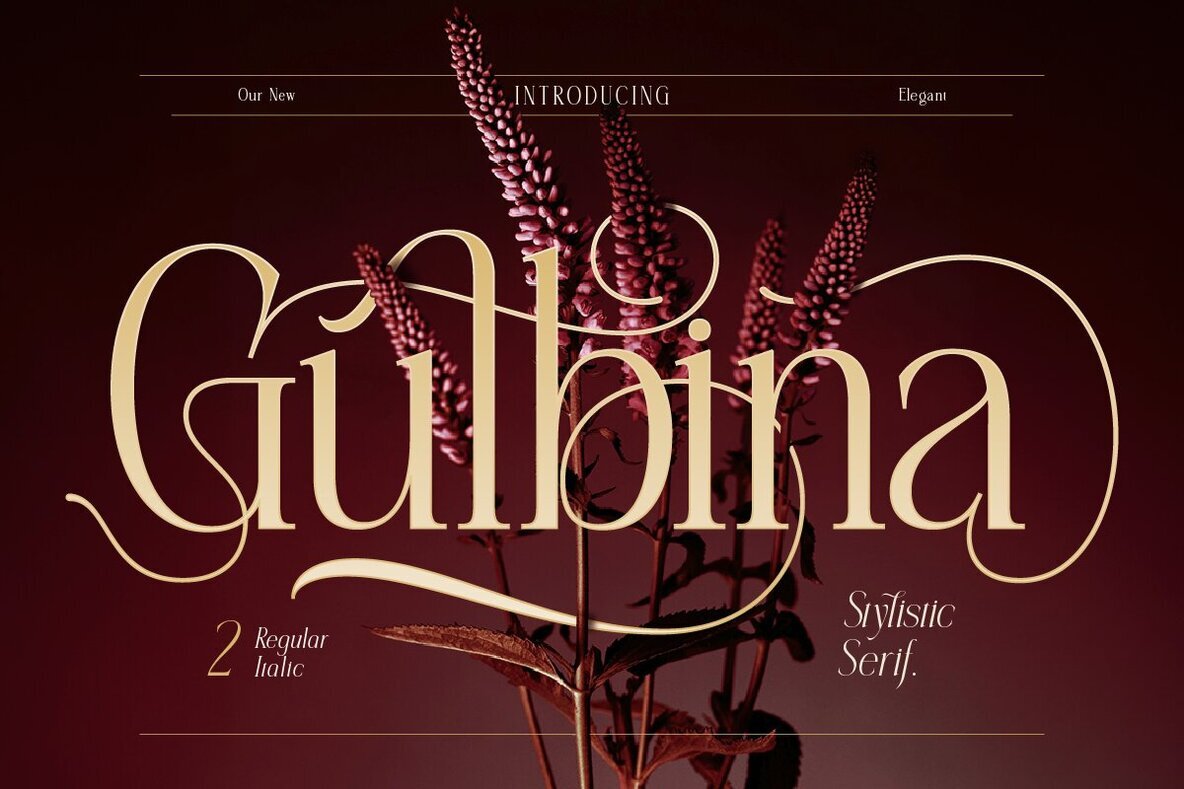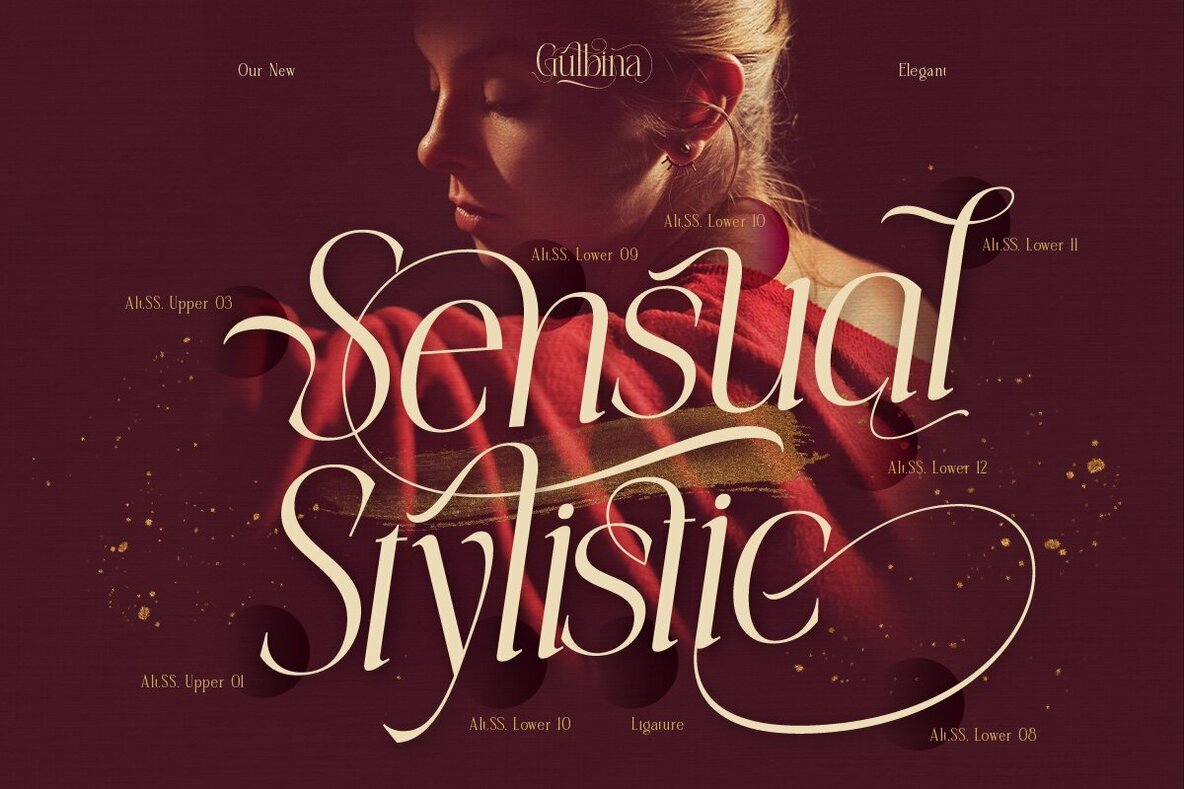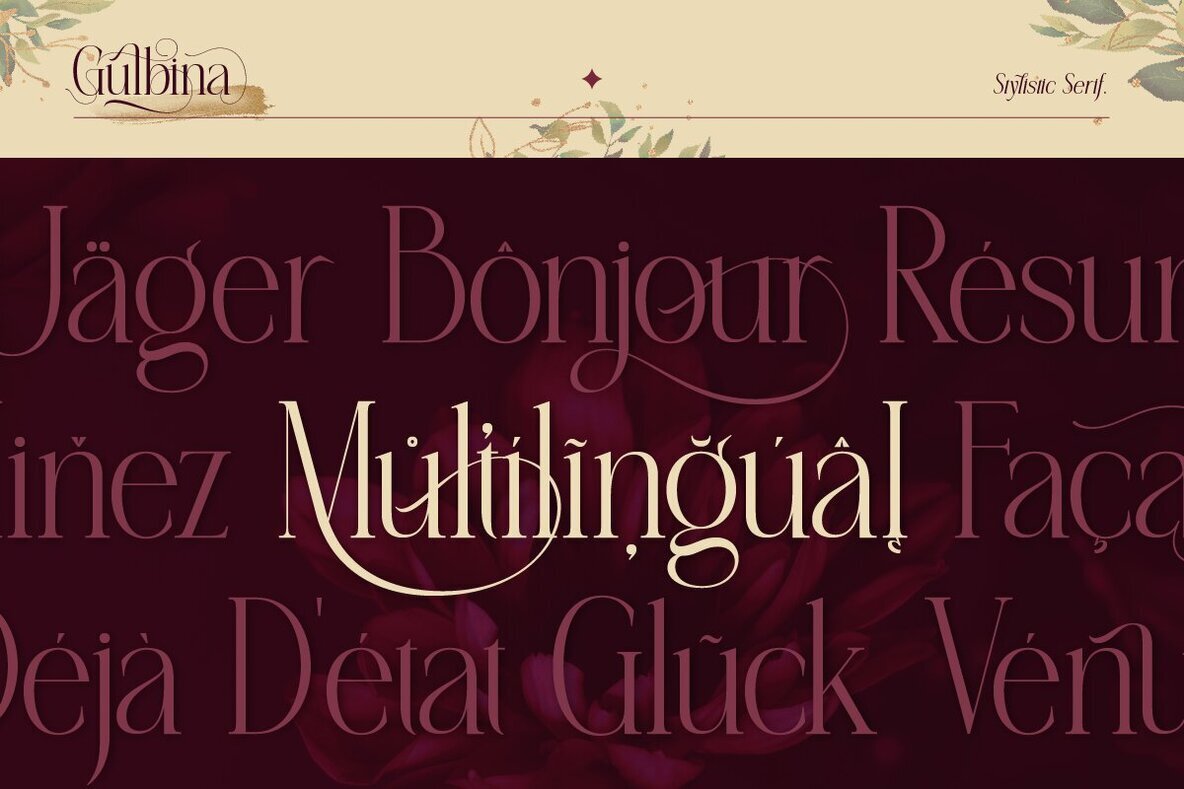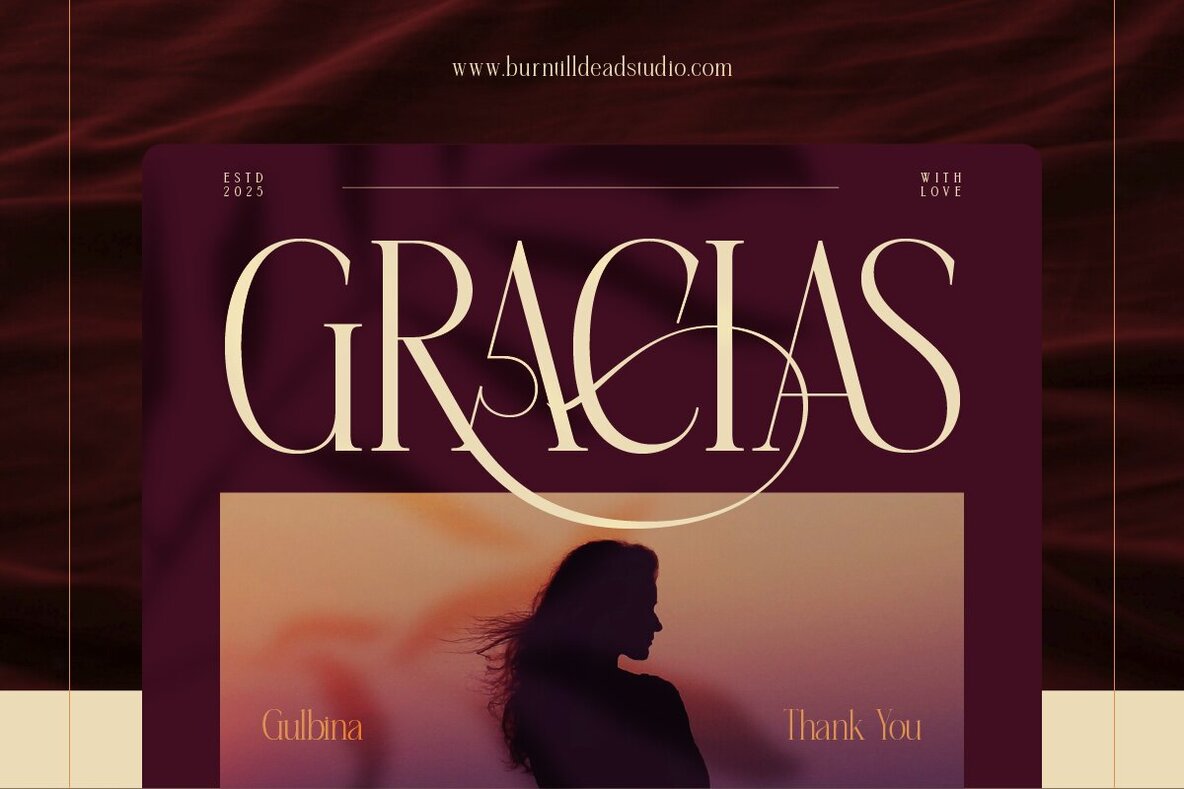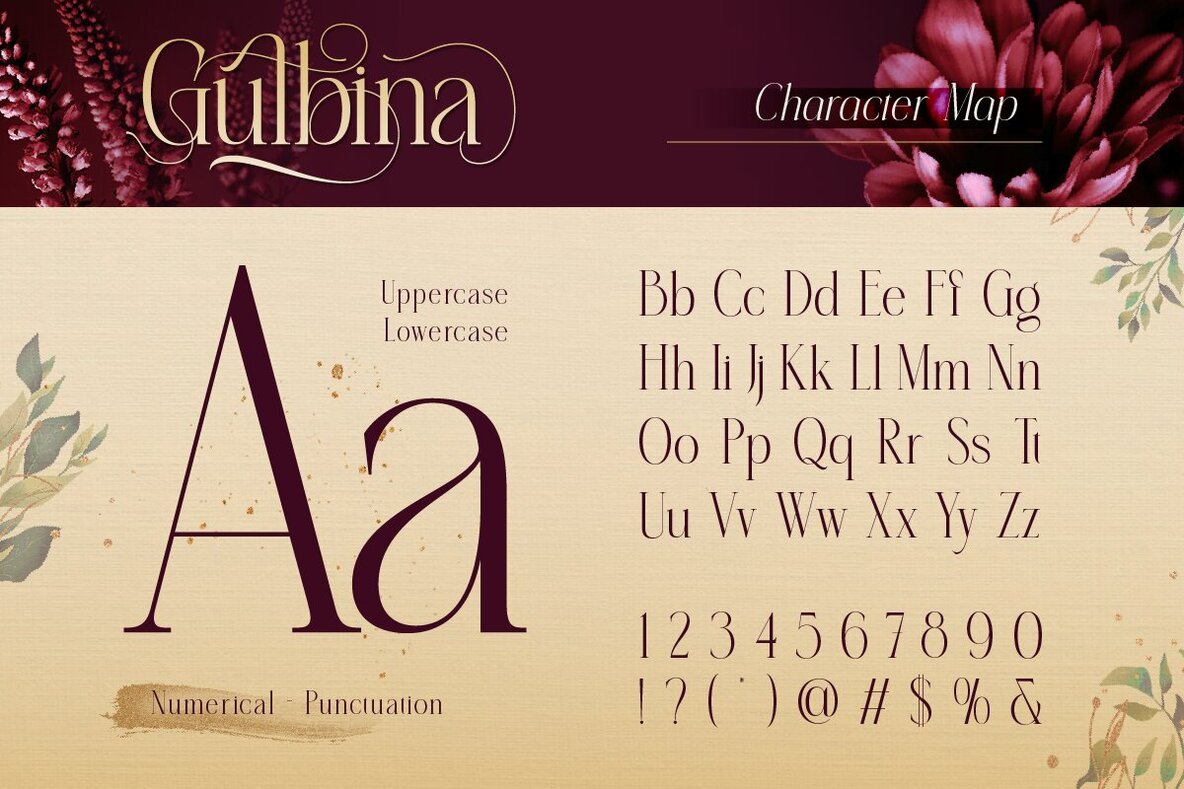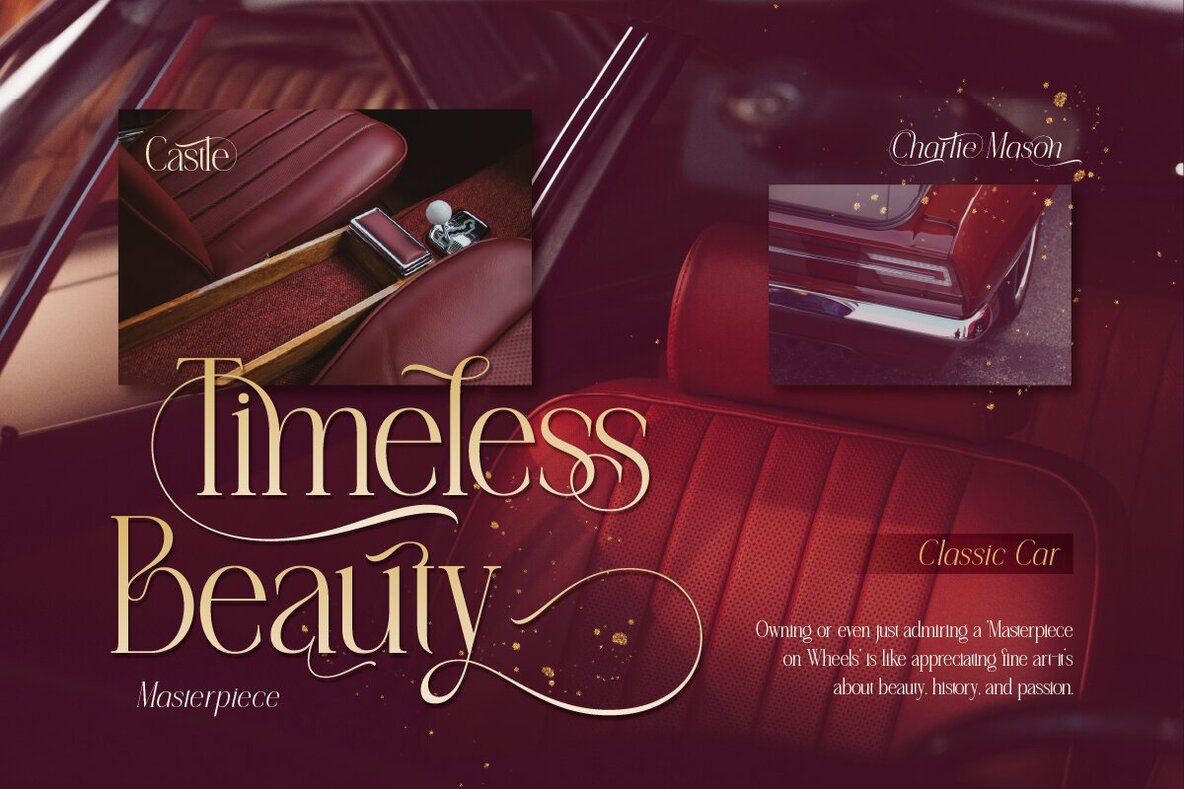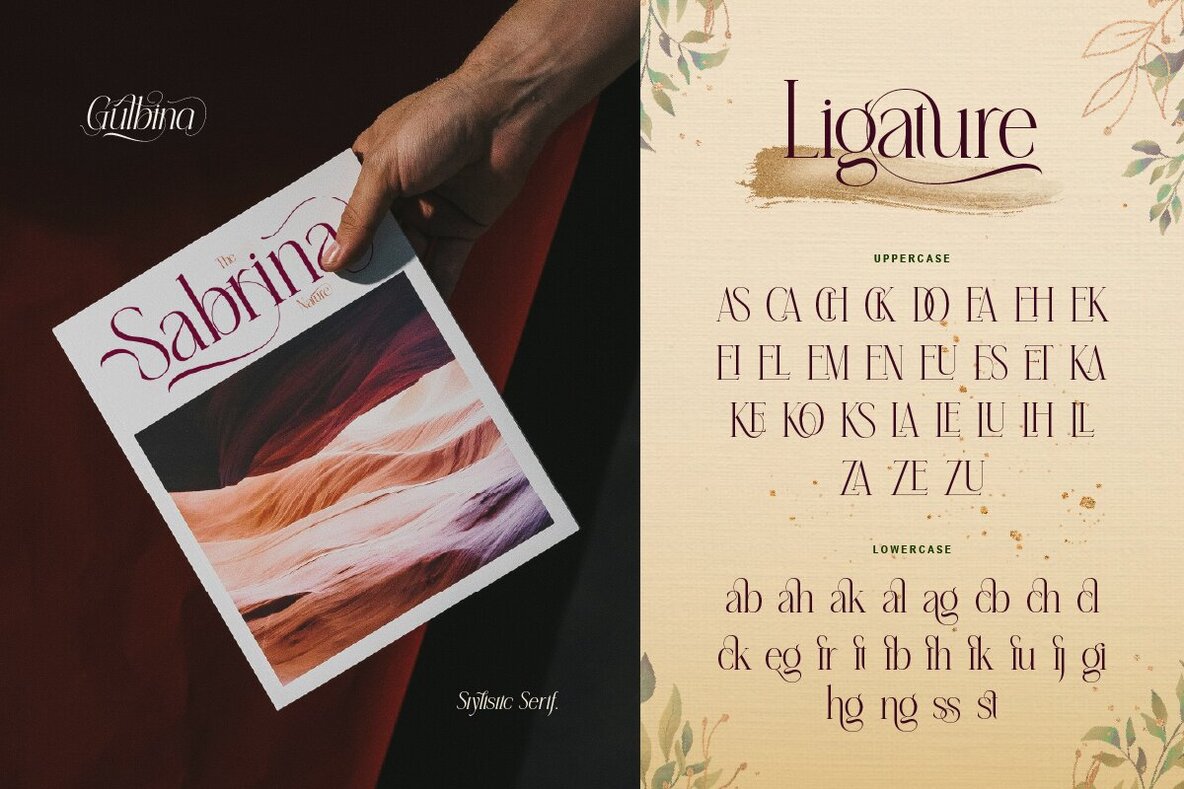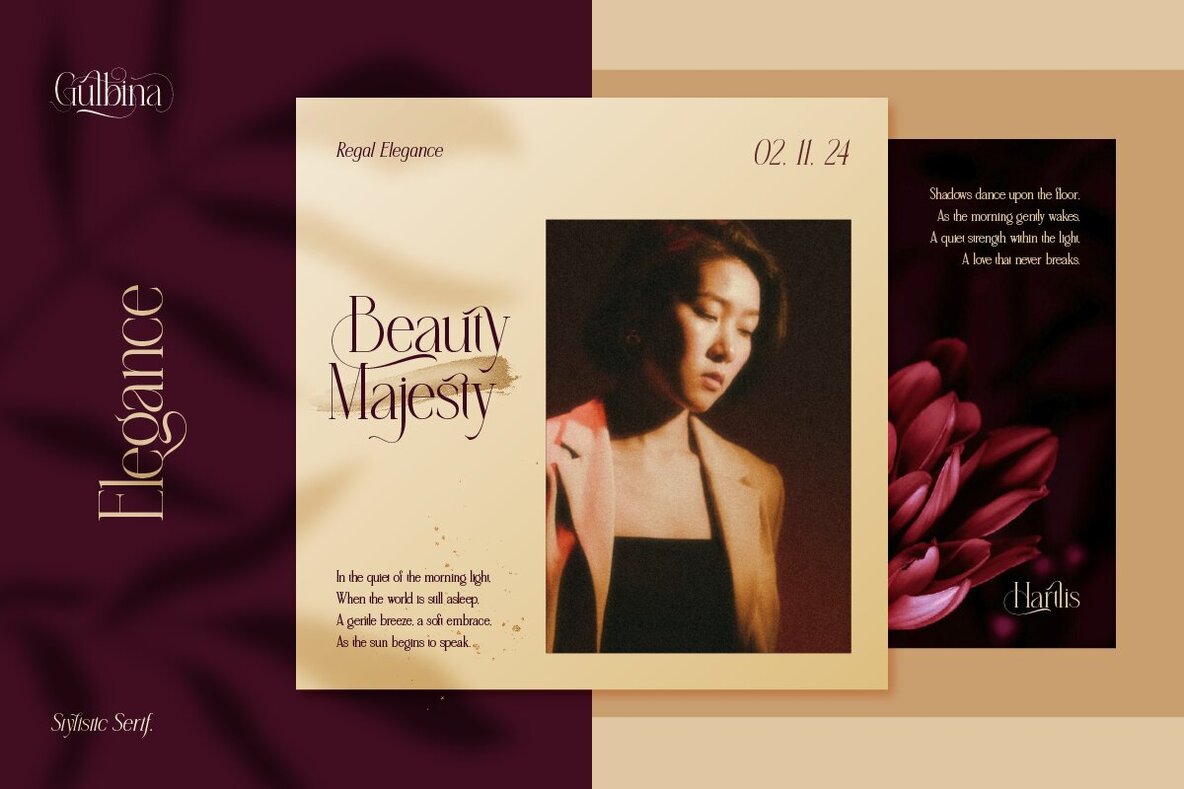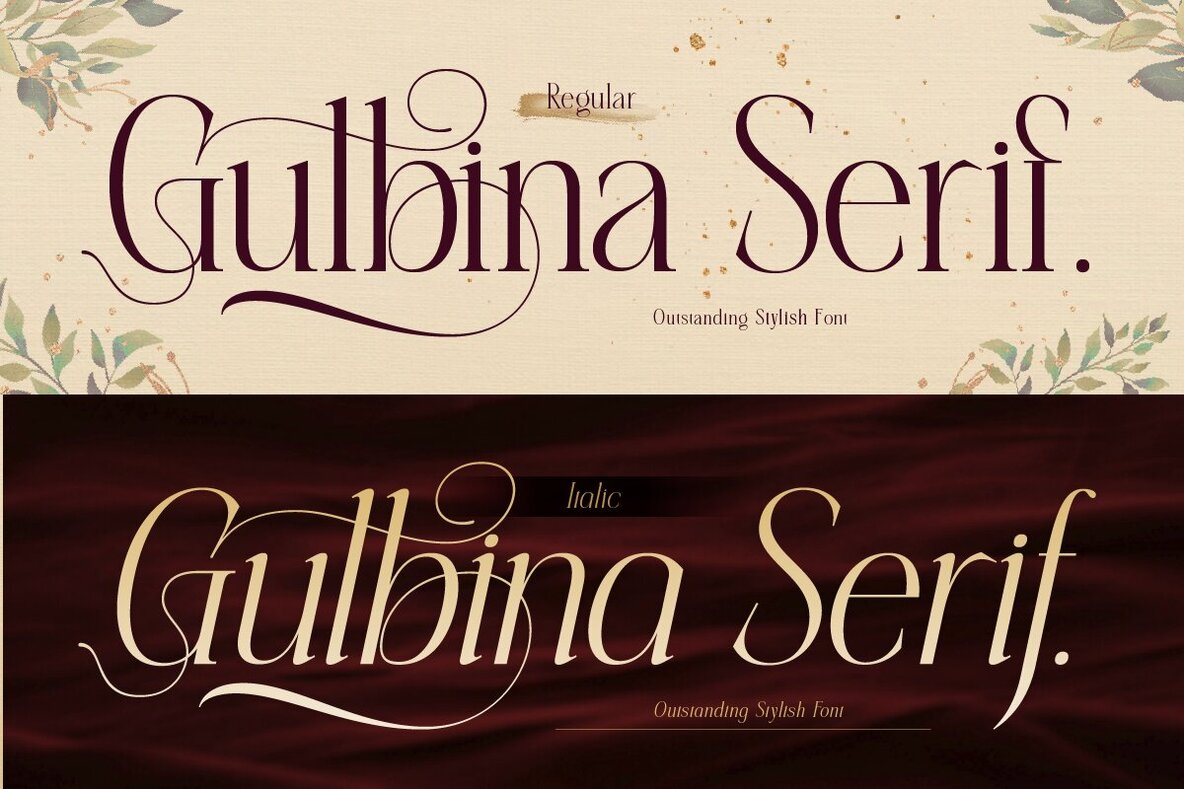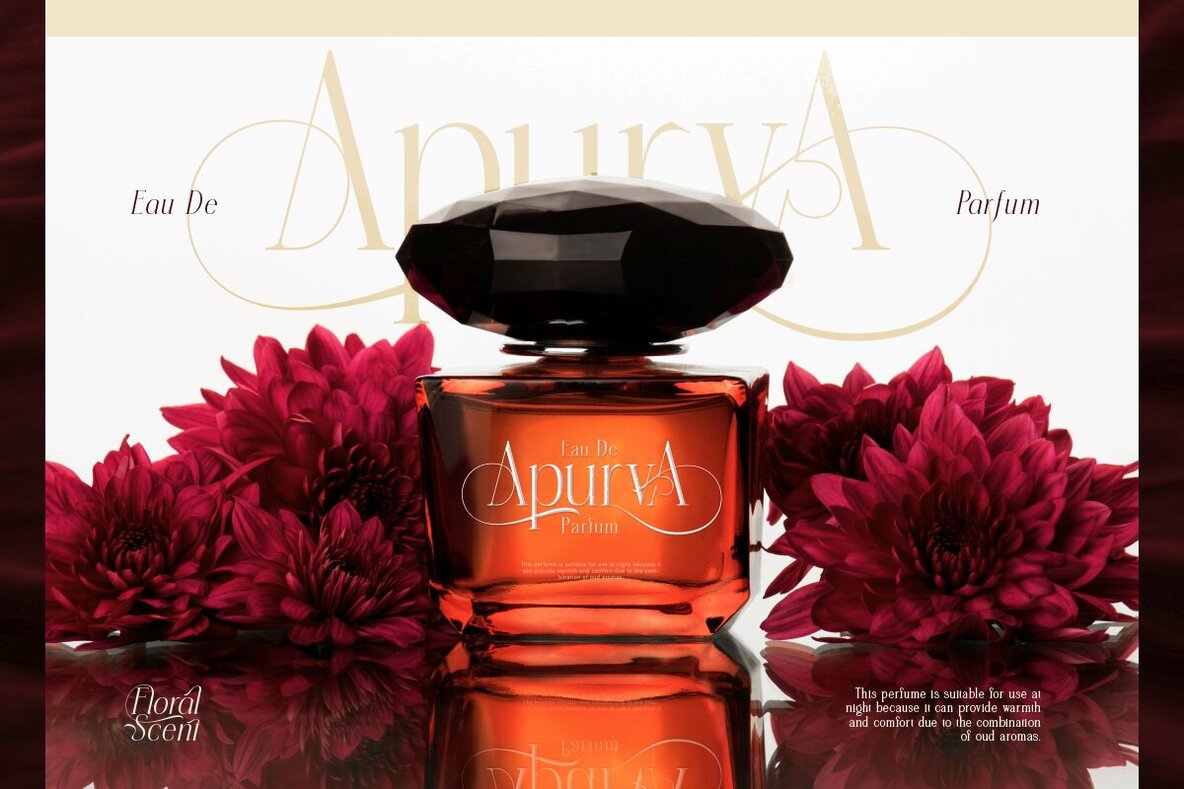
Gulbina Font
Gulbina is a serif font that embodies elegance and artistry in every letter. Available in Regular and Italic styles, it features versatile alternates that exude professionalism and sophistication. Ideal for projects demanding a modern classic aesthetic, Gulbina suits applications such as logos, product packaging, magazines, luxury branding, social media, and wedding invitations. Its timeless character aids in crafting a strong visual identity and ensures a memorable impact.
Features include:
- Full alphabet (A-Z), both uppercase and lowercase
- Number set
- Punctuation marks
- Alternates for design variety
- Ligatures for seamless text flow
- Multilingual support